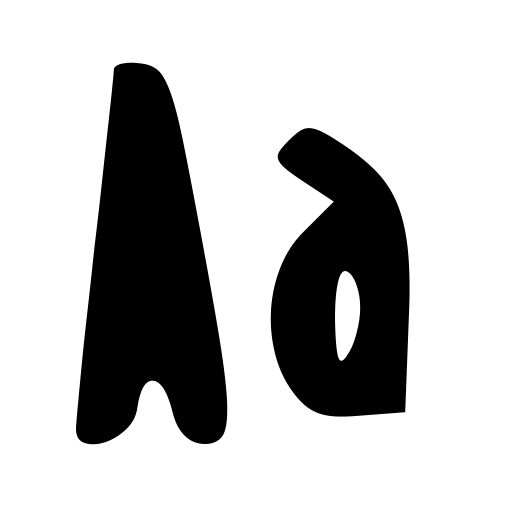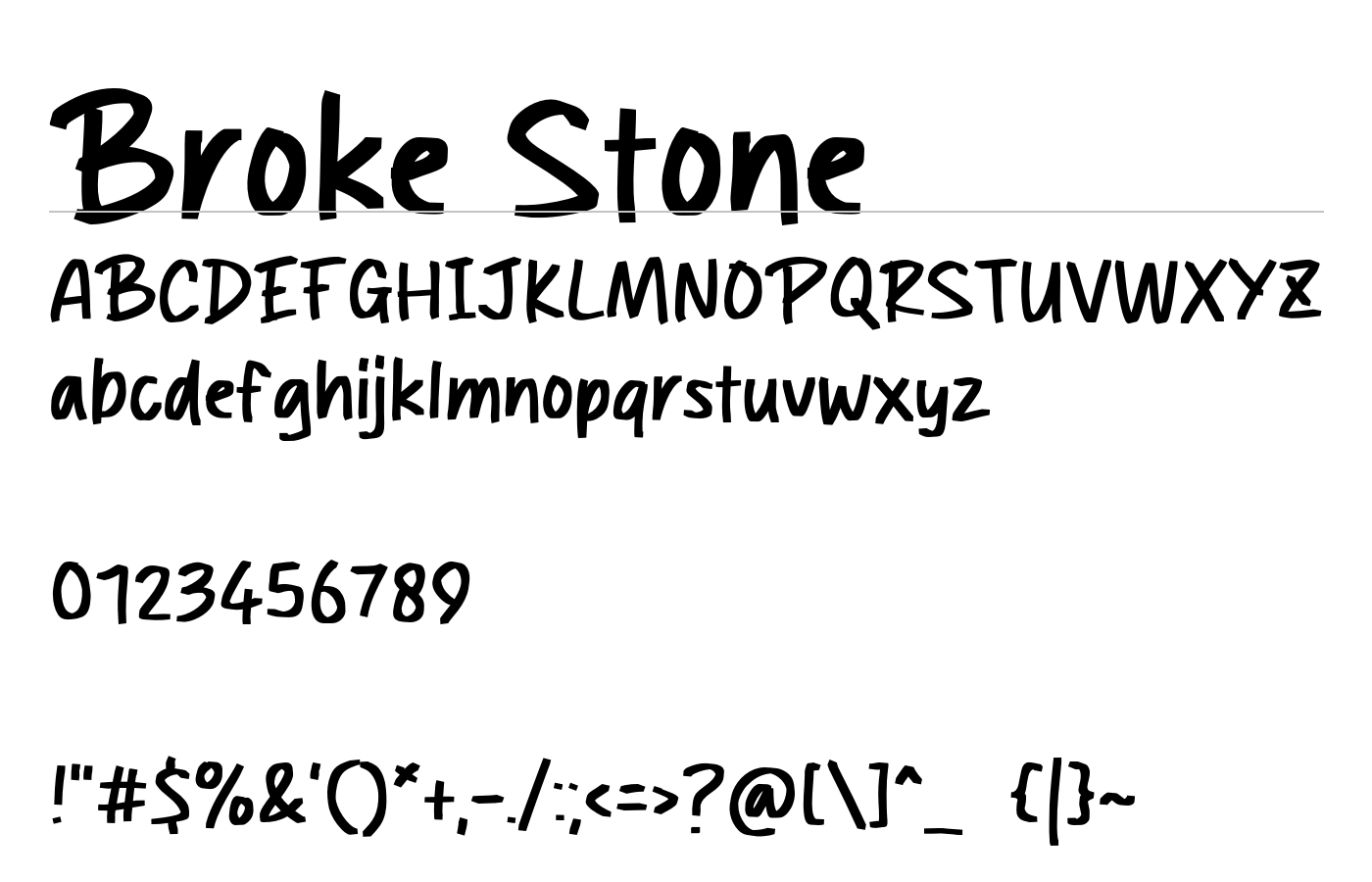
Broke Stone is a casual, handwritten-style sans serif font with a playful and slightly rough appearance, giving it a lively and informal feel. It features irregular strokes with medium weight and a moderate x-height, making it easy to read while maintaining character. This font works well for creative projects, friendly branding, and informal headlines where a personal and approachable touch is desired.
Broke Stone Font
About Broke Stone Font